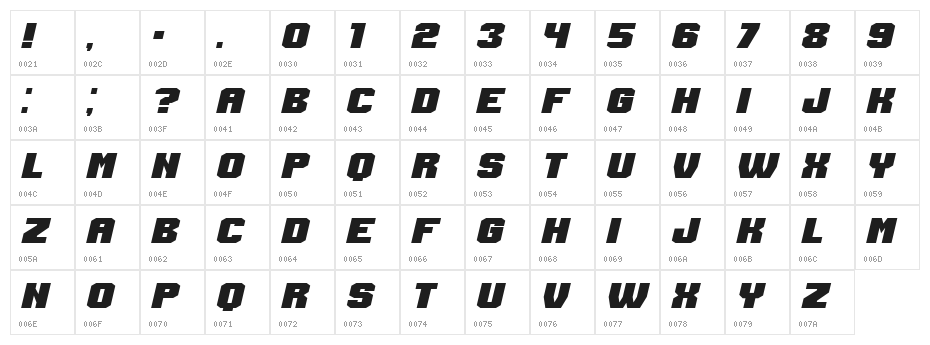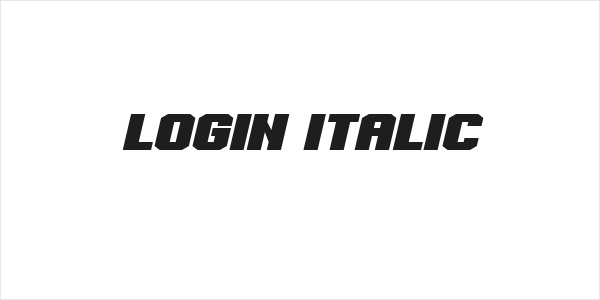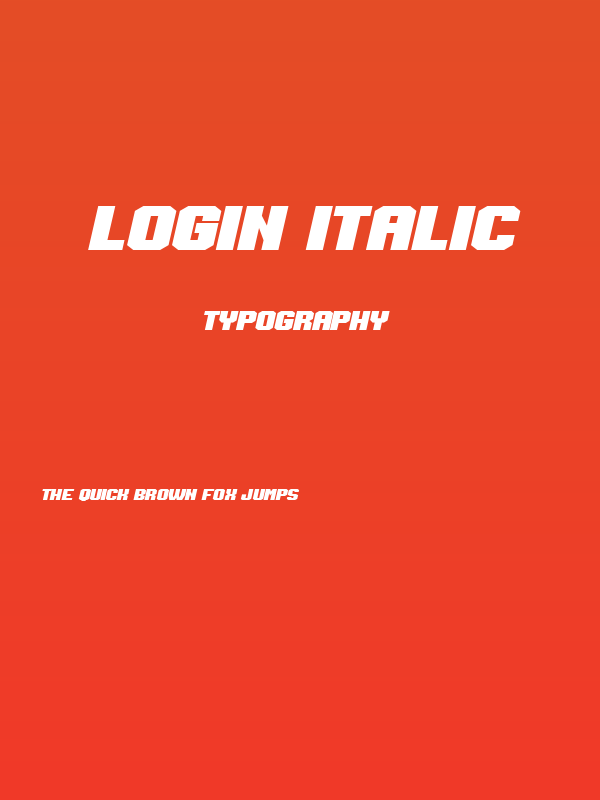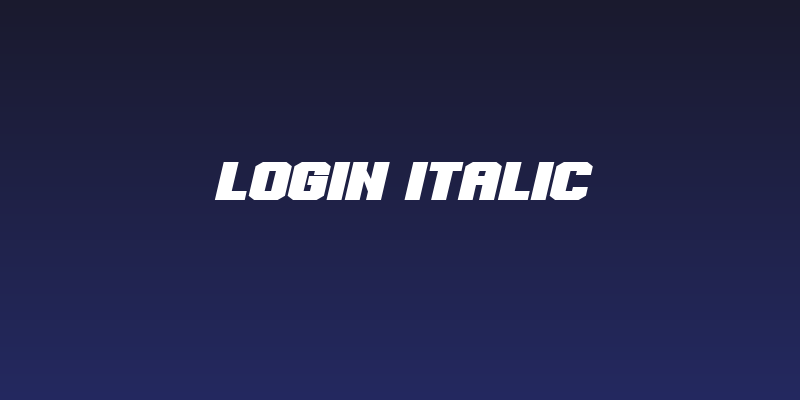
Login Italic Font
Login Italic Description
This font features a bold and dynamic style with a distinct italic slant, giving it a sense of motion and energy. The characters are robust and angular, with sharp edges and a strong presence. The uppercase and lowercase letters maintain a consistent weight, contributing to a cohesive look. The numerals are equally bold, ensuring readability and impact. Special characters are designed to match the overall aesthetic, making them suitable for attention-grabbing applications. The font's design is ideal for projects that require a modern and assertive appearance.
| Proposed Projects | Ideal for sports branding, action-themed posters, and dynamic logo designs. |